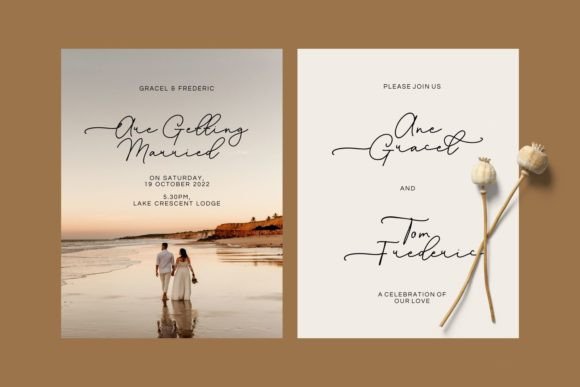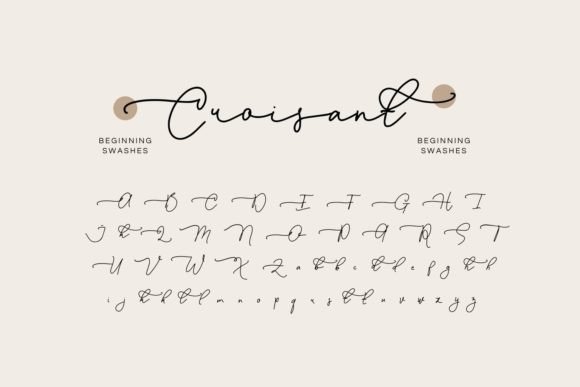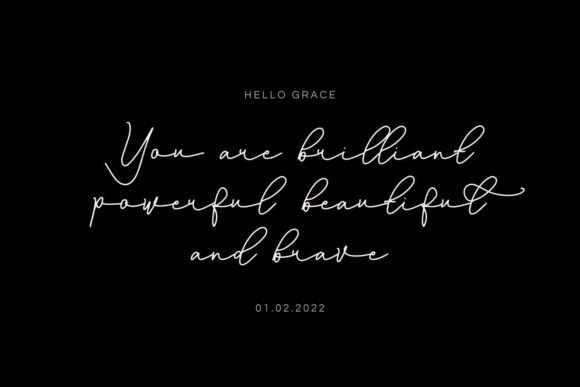
The Bronych
About The Bronych
The Bronych is a stylish and elegant monoline script font. Whether you’re using it for crafts, digital design, presentations, or making greeting cards, this font has the potential to become your favorite go-to font, no matter the occasion! This font is PUA encoded which means you can access all the glyphs and ligatures with ease!